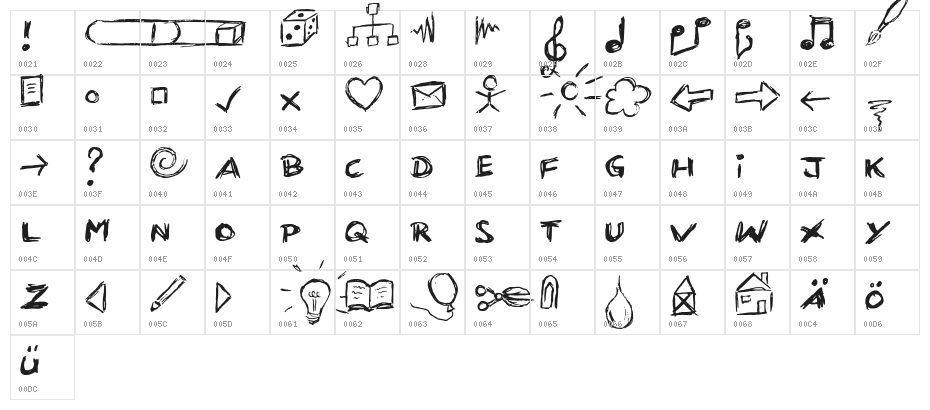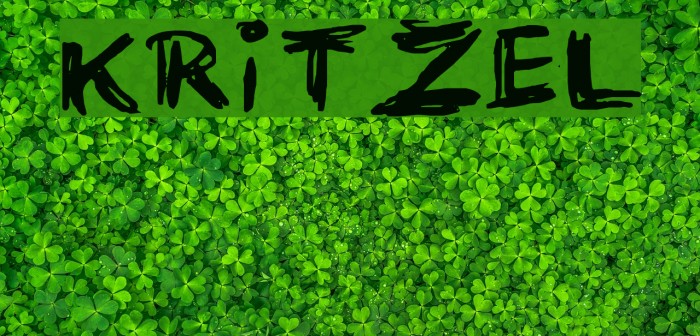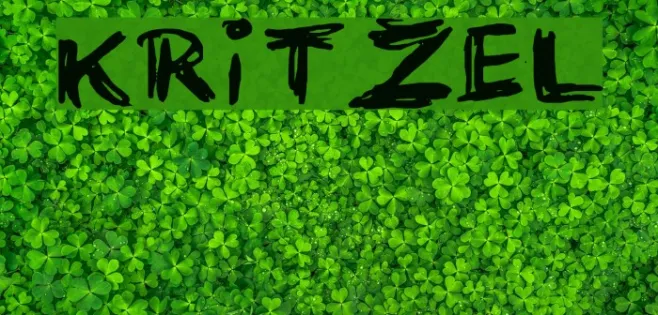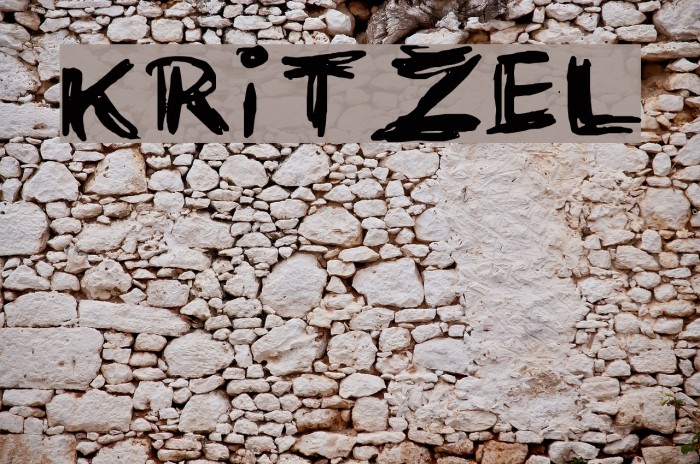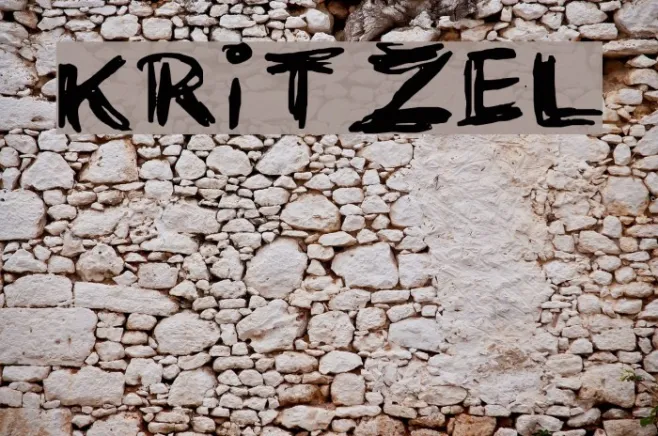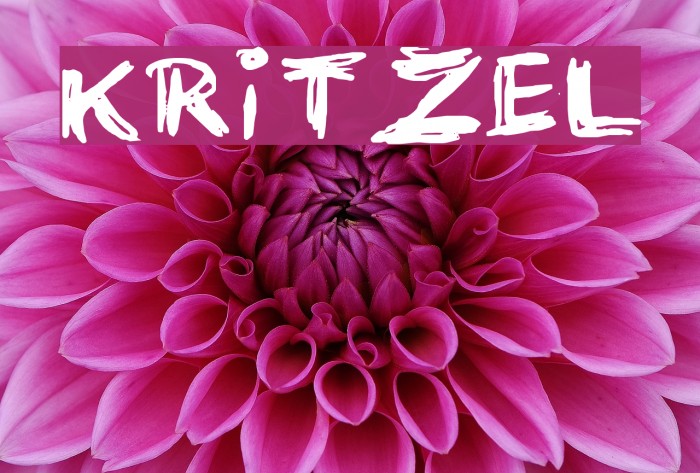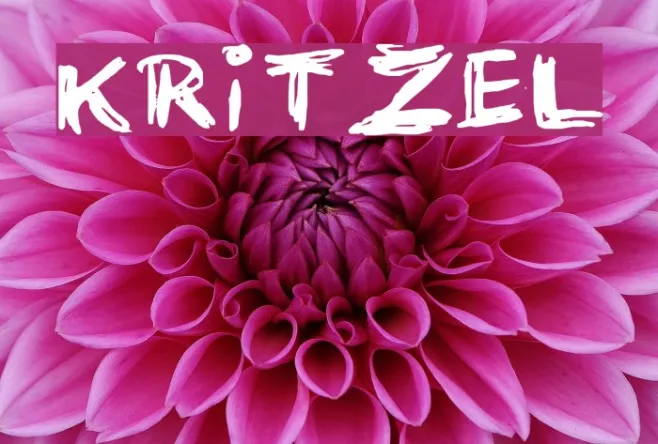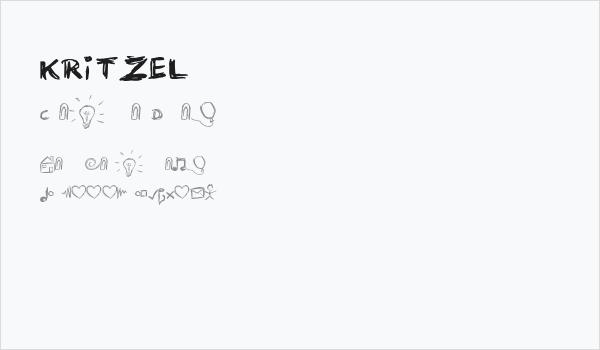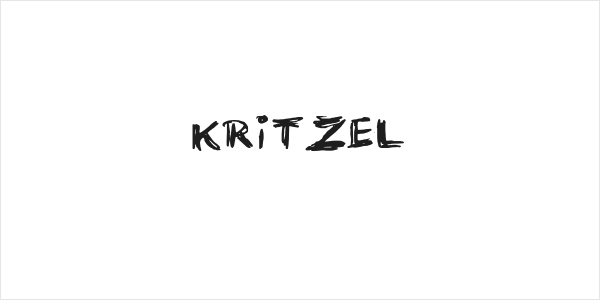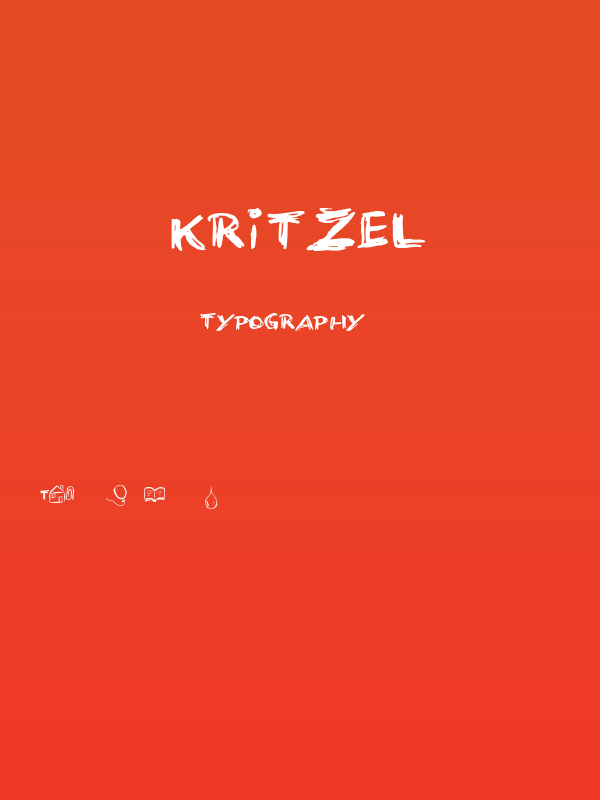
KRITZEL Font
KRITZEL Description
This font features a playful and sketchy style, reminiscent of hand-drawn doodles. Each character is crafted with irregular strokes, giving it a casual and artistic appearance. The uppercase letters are bold and dynamic, while the lowercase letters maintain a consistent whimsical flair. The numerals and special characters follow the same sketch-like design, adding to the overall informal and creative vibe. This font is perfect for projects that require a touch of personality and creativity, such as children's books, playful branding, or artistic posters.
| Proposed Projects | Children's books, playful branding, artistic posters, creative invitations. |